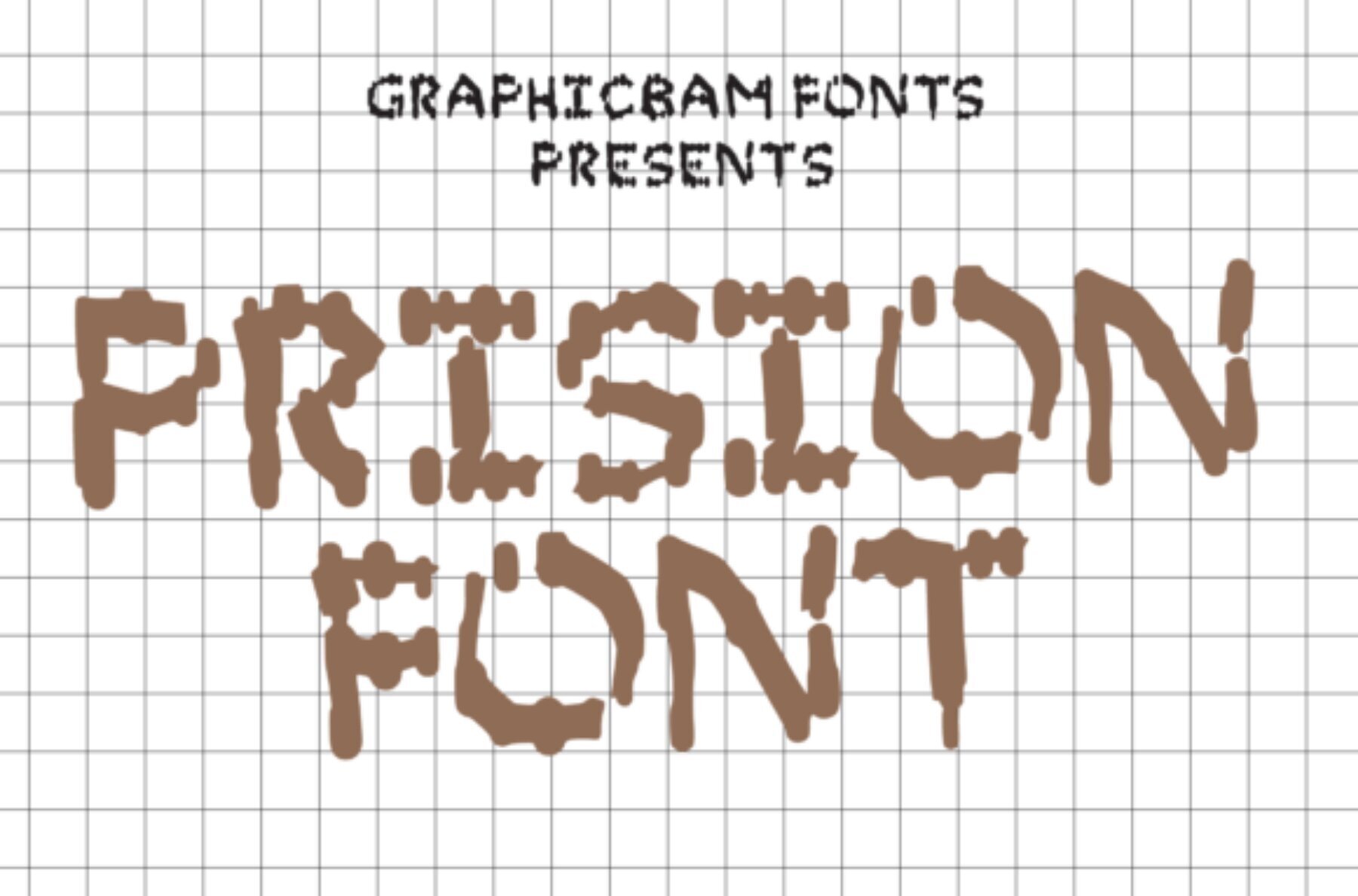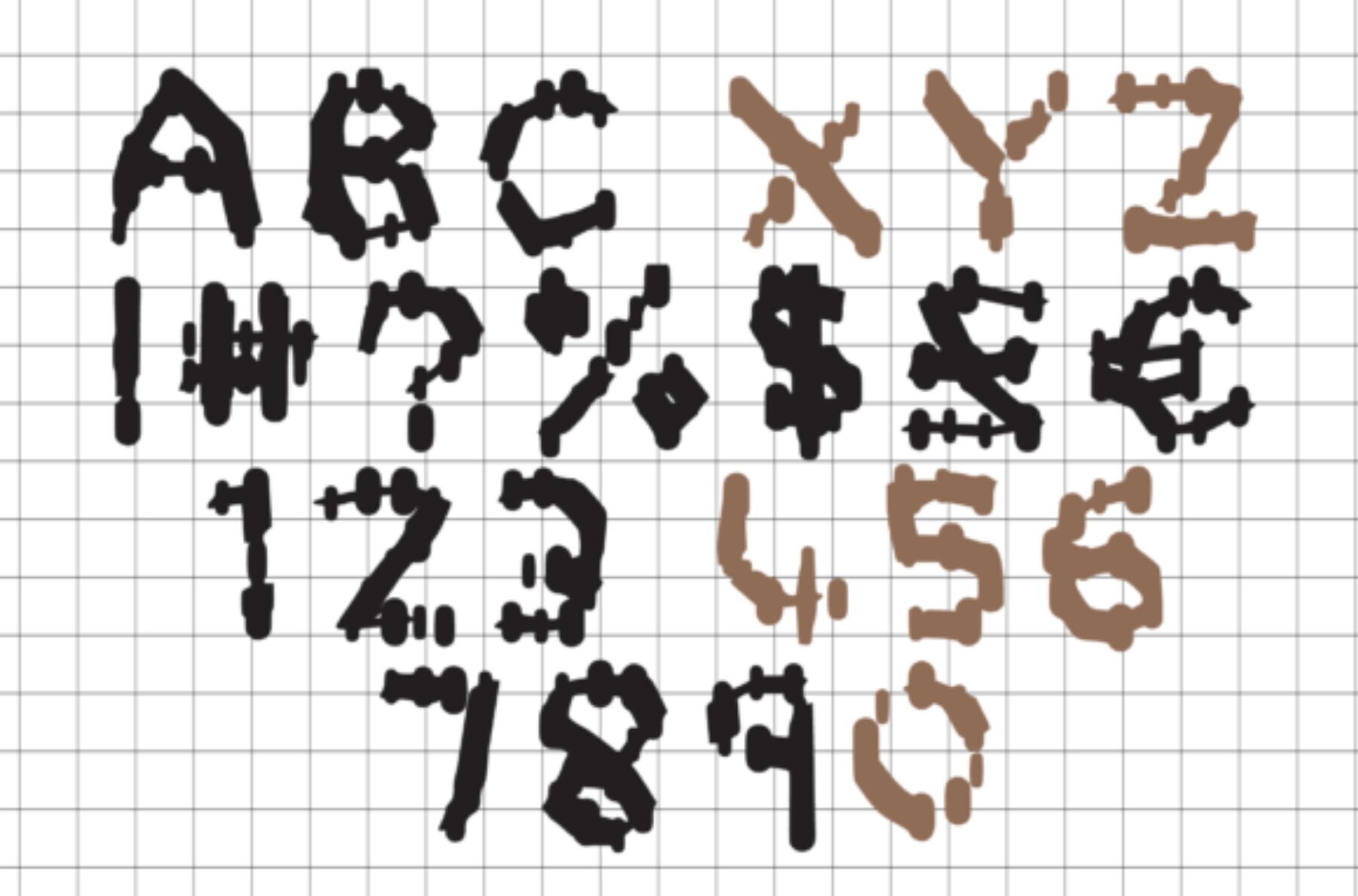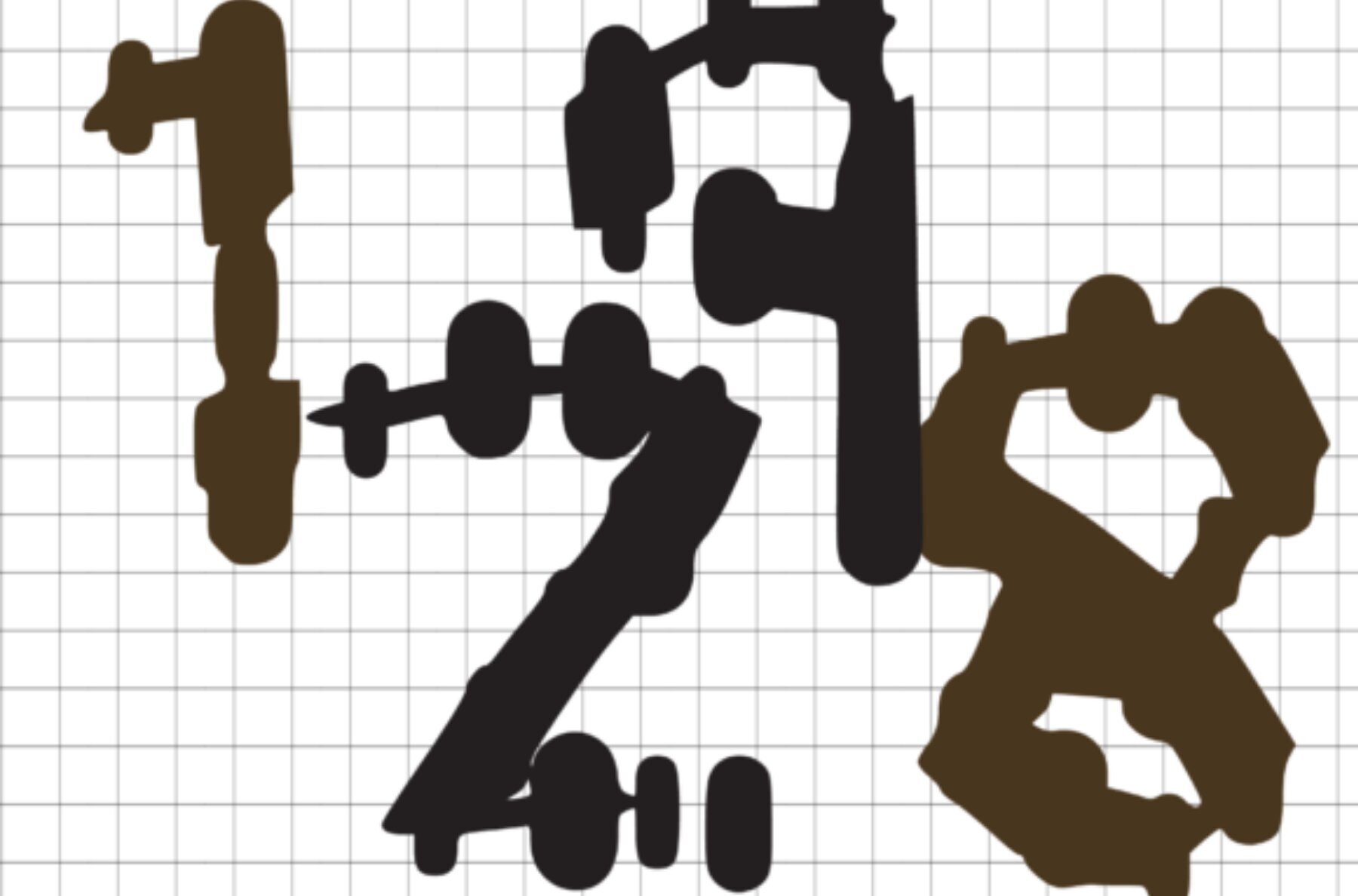
Prison Font
Inspired by the haunting etchings found on ancient walls, Prison brings a touch of eerie elegance to your projects. This dramatic display font captures the raw and spooky essence of its origins, making it perfect for designs that demand attention. With Prison, your work gains a unique, haunting appeal that evokes mystery and intrigue. Whether you're designing a poster for a Halloween event or creating striking titles for a film, this font's distinct style ensures your message will resonate with the viewer.Prison - A Dramatic Display Font